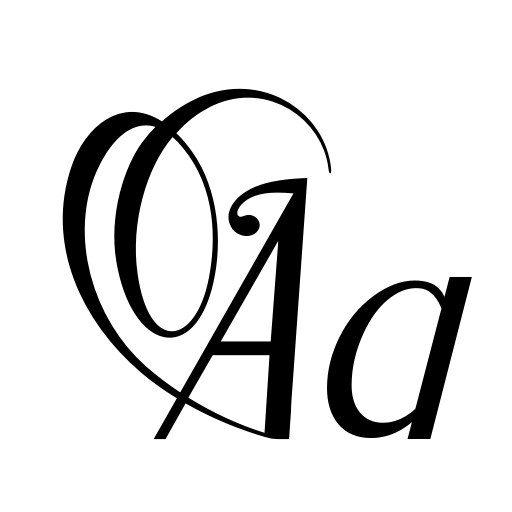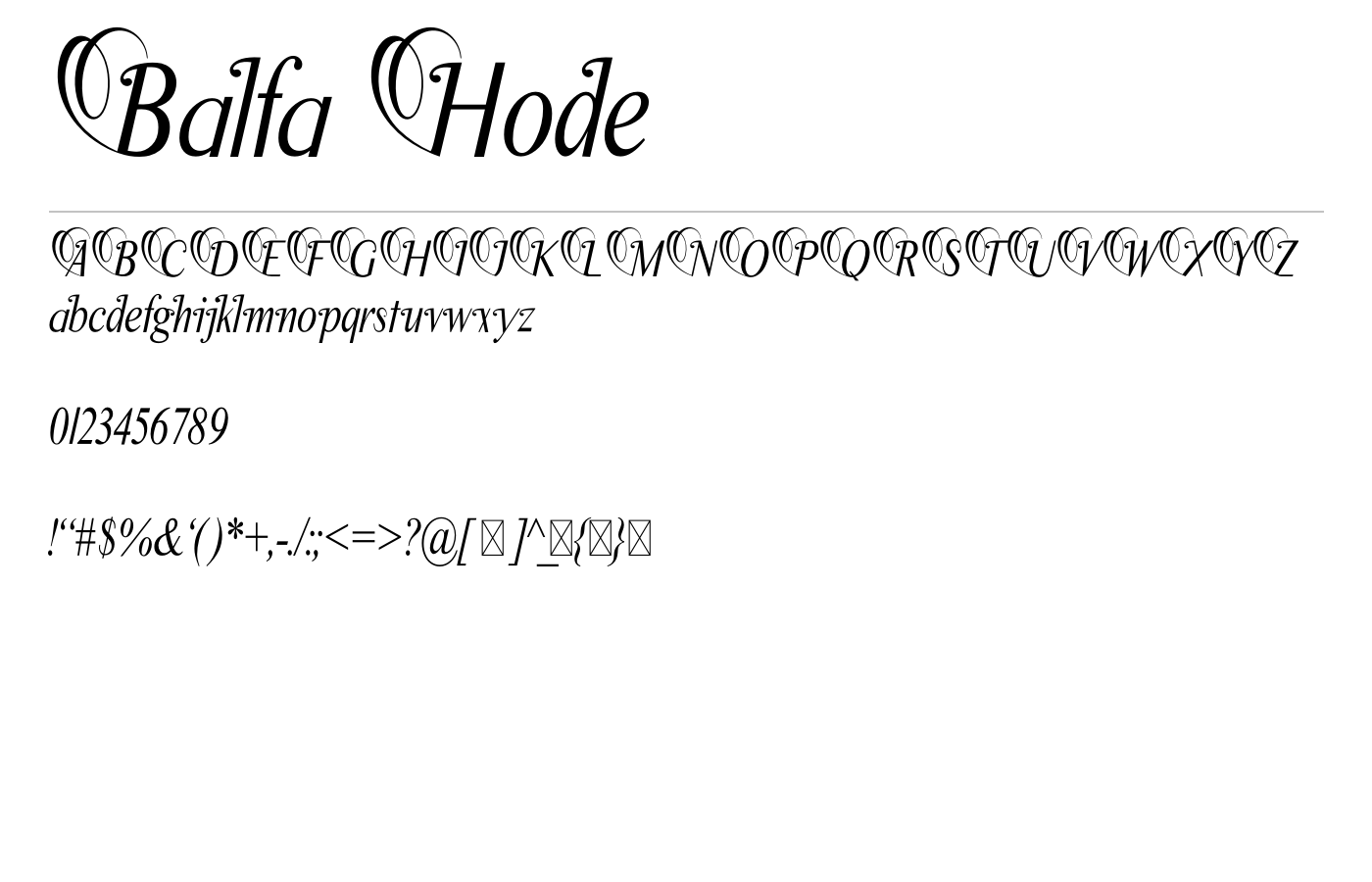
Balfa Hode is an elegant serif font with a distinctive, artistic flair highlighted by its exaggerated, looping swashes on uppercase letters and refined, slender lowercase forms. Its high contrast strokes and delicate, calligraphic style give it a luxurious, sophisticated feel, making it ideal for upscale branding, invitations, and display use where a touch of refinement and creativity is desired. This font stands out in headline and logo design, adding a graceful, memorable presence to any project.
Balfa Hode Font